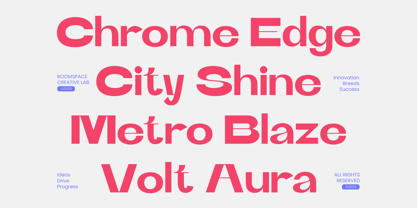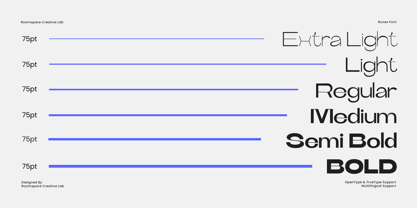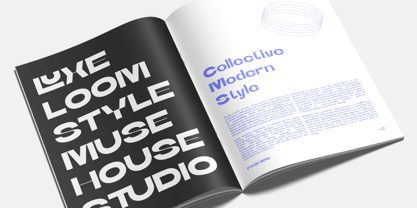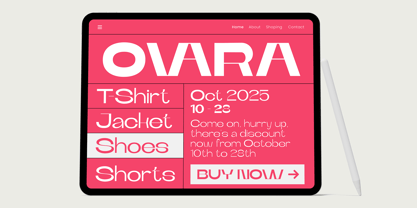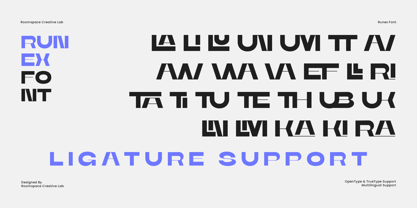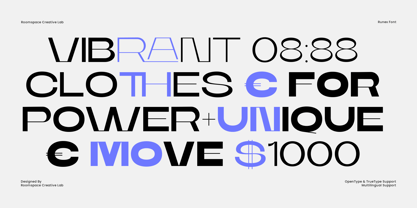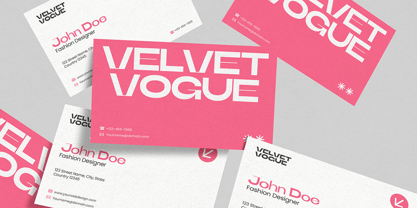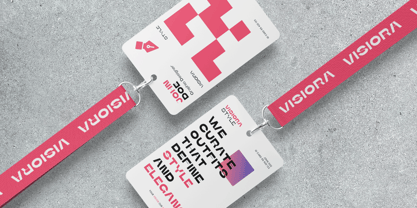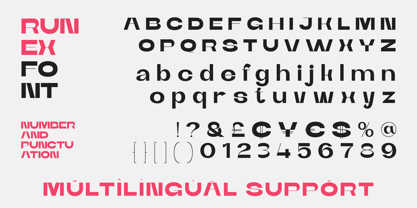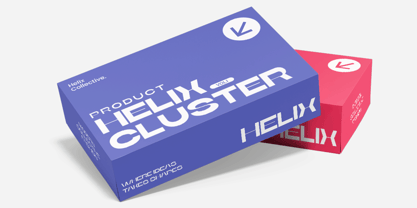
Runex
The Runex Font Family was designed by Bakhrudin Ja'far and published by Jafar07. Runex contains 6 styles and family package options. More about this family
RUNEX is a modern bold sans serif font designed with precision and confidence. This typeface captures the essence of contemporary design: strong, structured, and effortlessly stylish. With its clean geometric form and modern aesthetic, RUNEX brings a professional yet creative feel to any visual project, making it a perfect choice for designers who love modern, confident typography. Every letter in RUNEX is crafted to deliver balance and readability. The bold structure ensures visibility even at small sizes, while the spacing and kerning are optimized for both print and digital use. This font includes multiple weights, uppercase and lowercase characters, punctuation, and multilingual support making it flexible for any type of branding or editorial design.